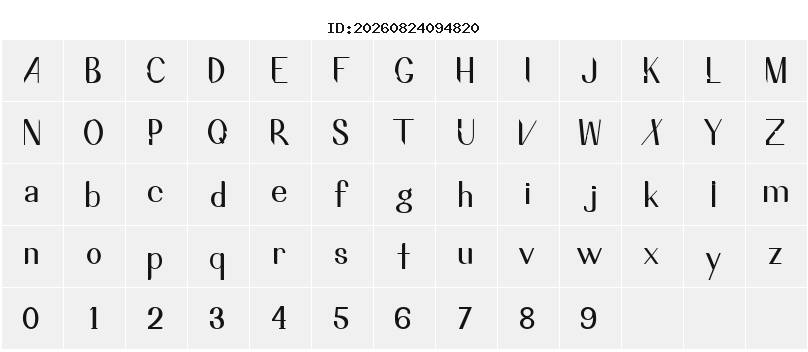
Sambadha Preview
• Font Name: Sambadha
• Full Font Name: Sambadha
About Sambadha.ttf
Sambadha.ttf is a modern, elegant sans-serif font designed for ultimate readability and visual harmony. Perfect for branding, headlines, web design, and print materials.